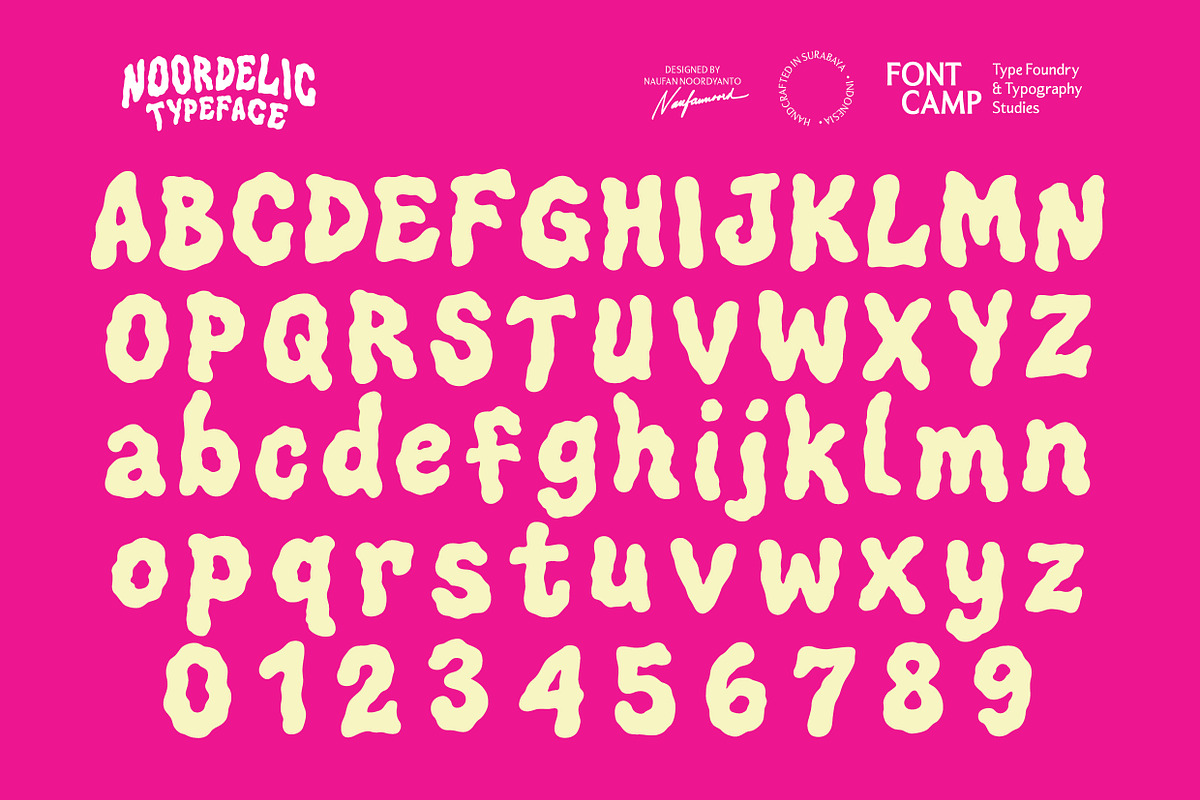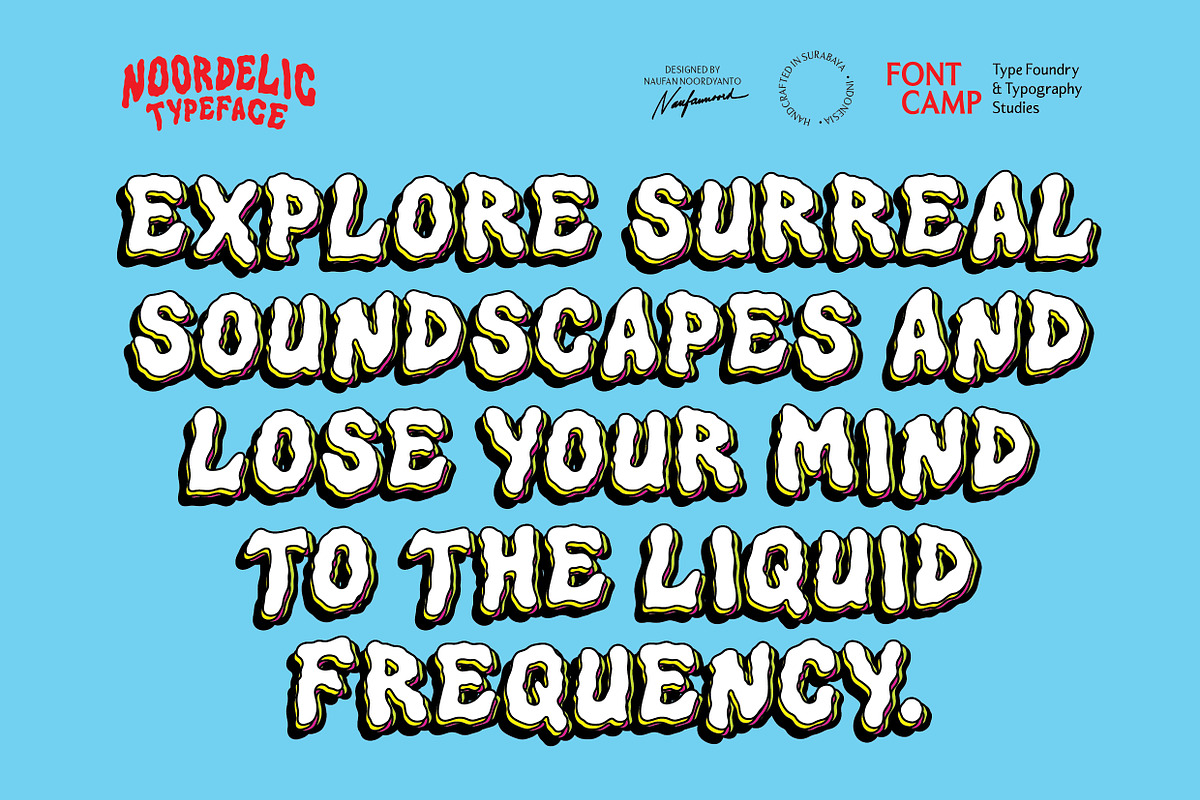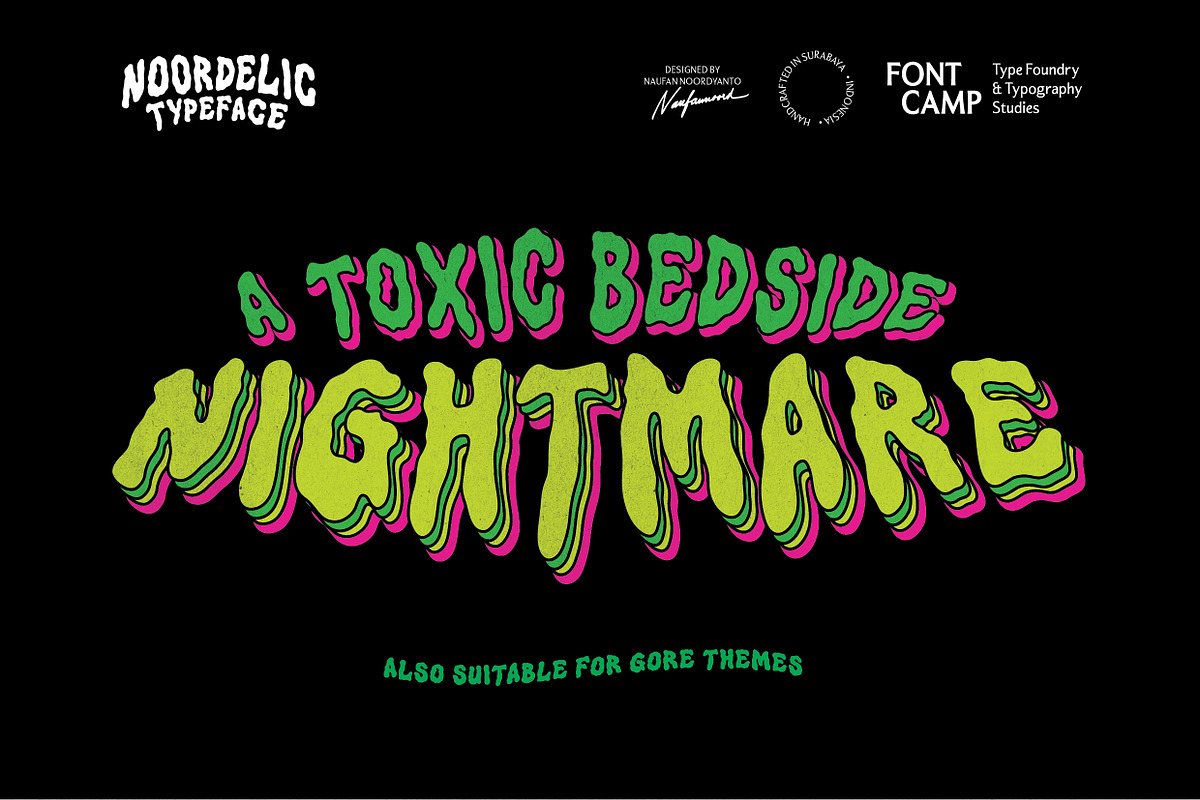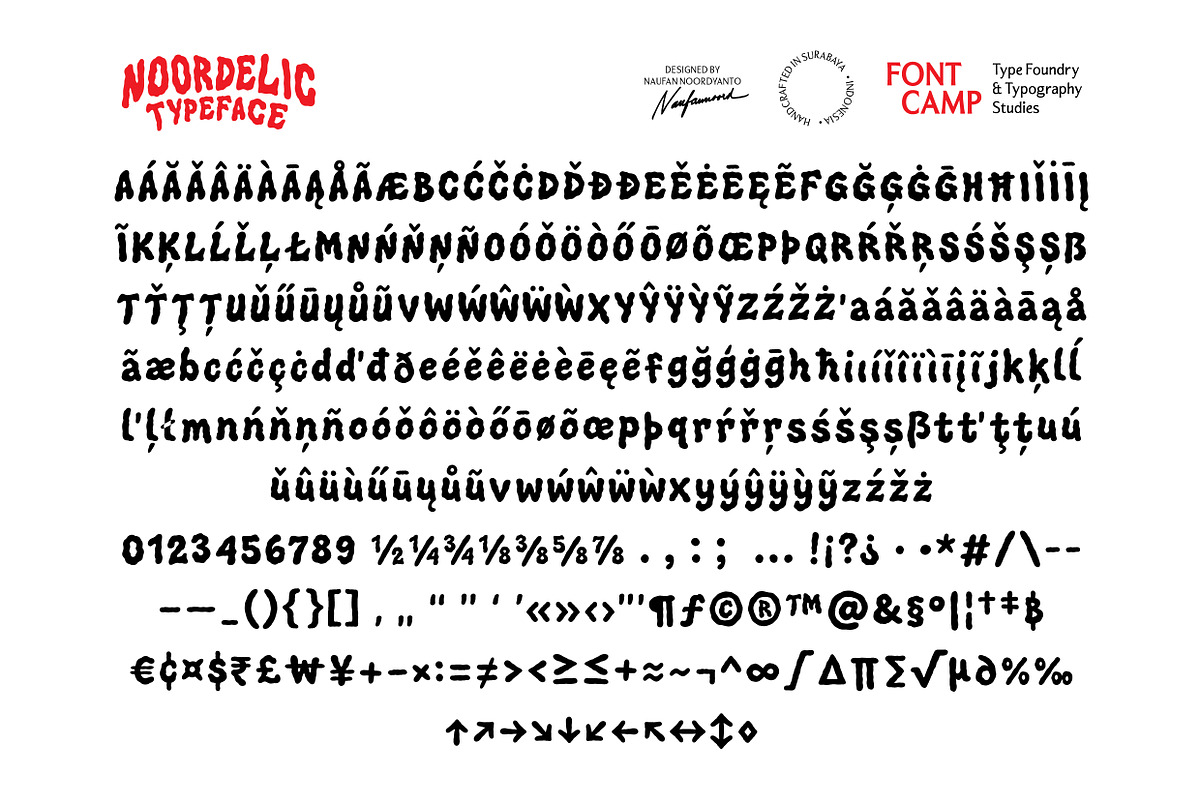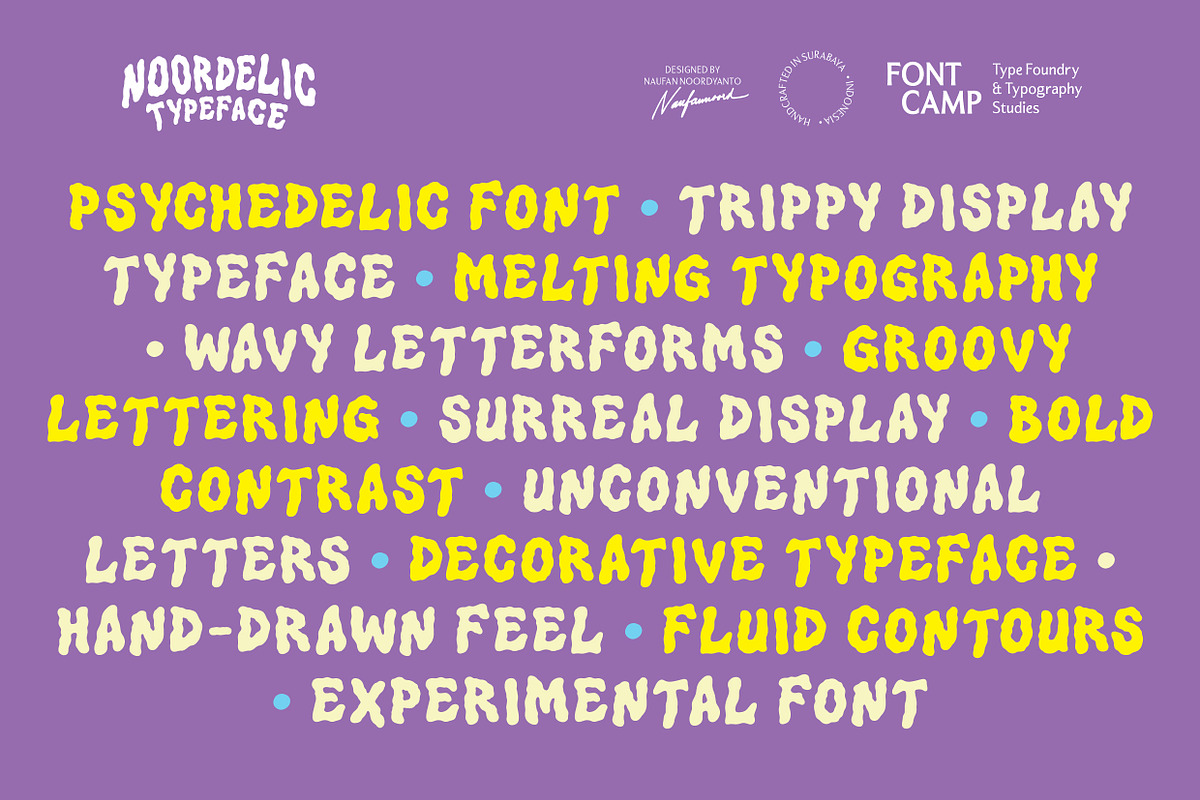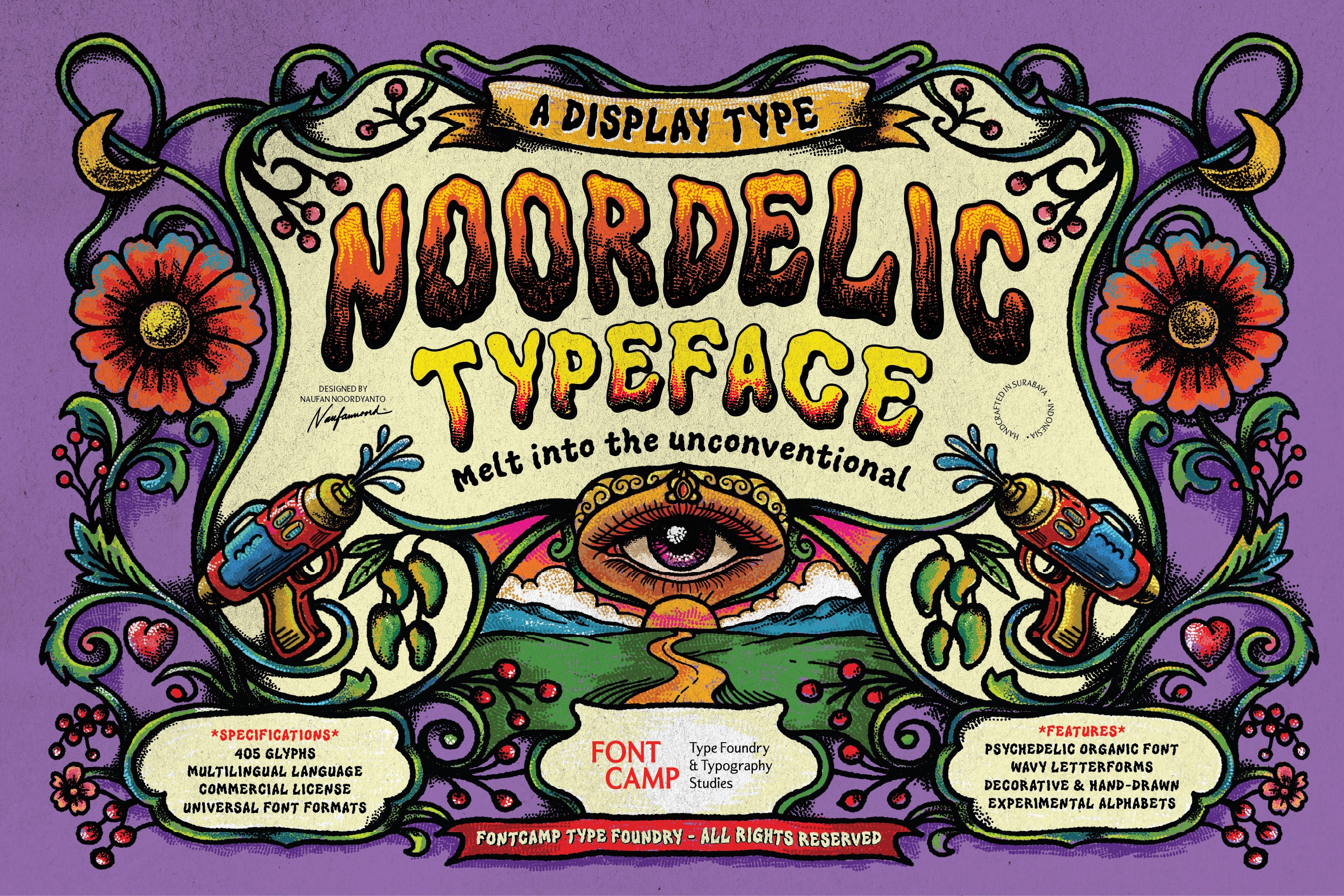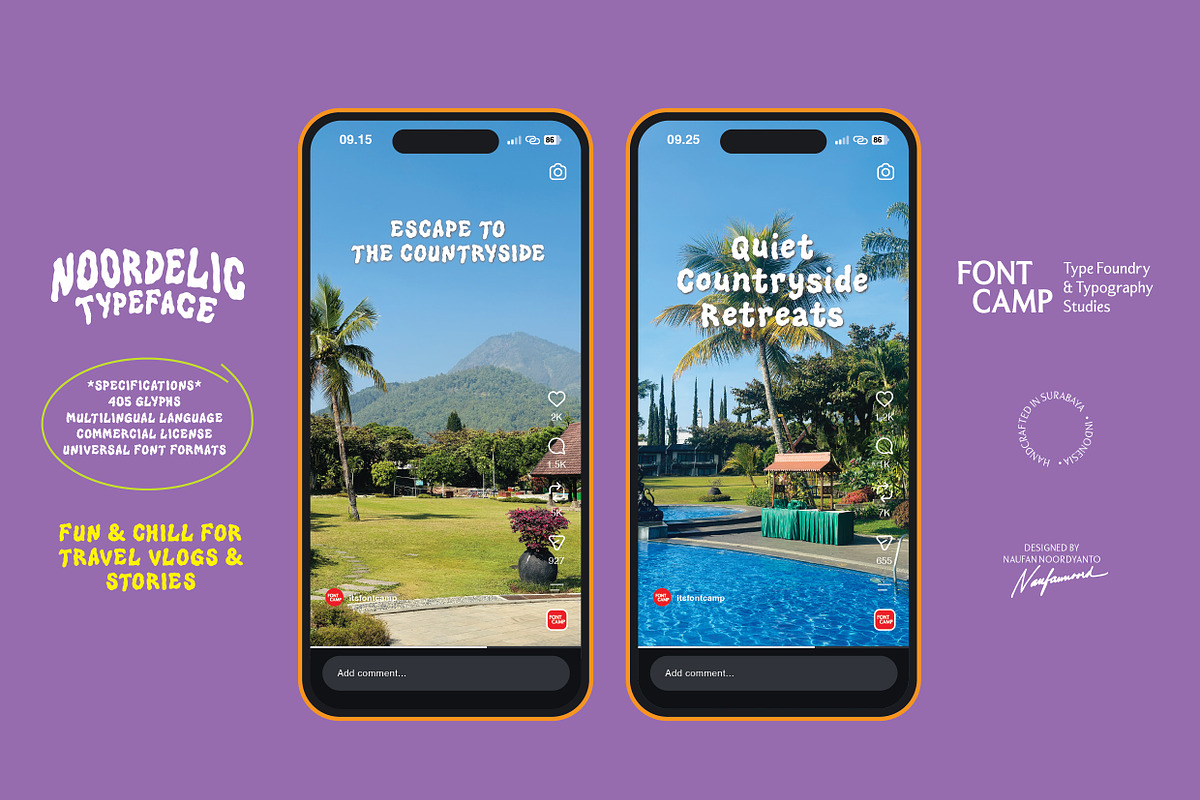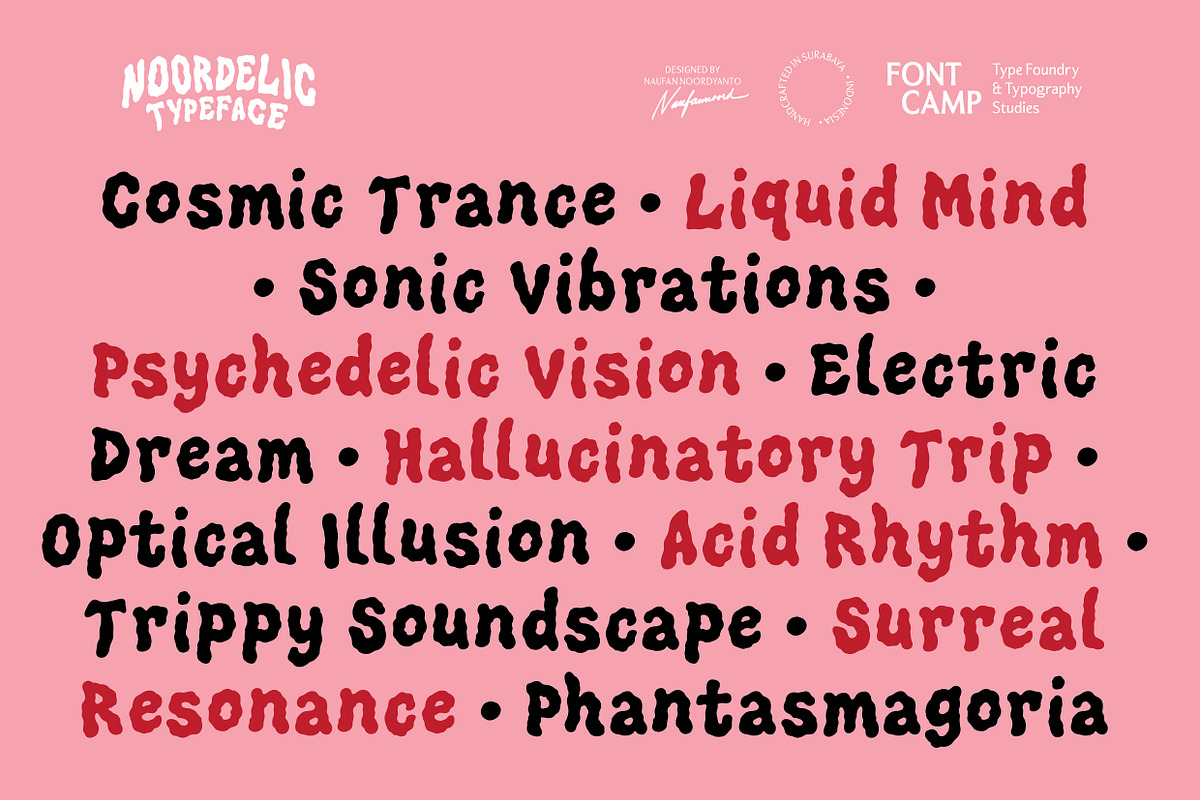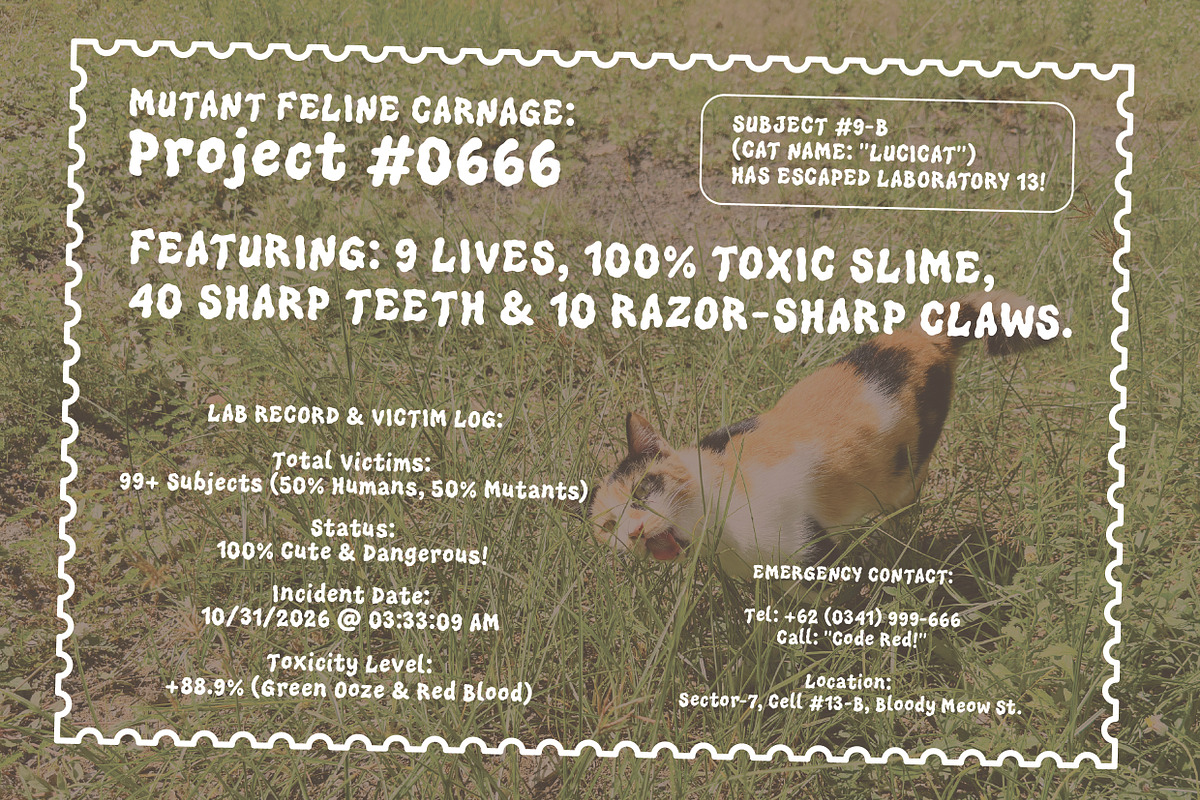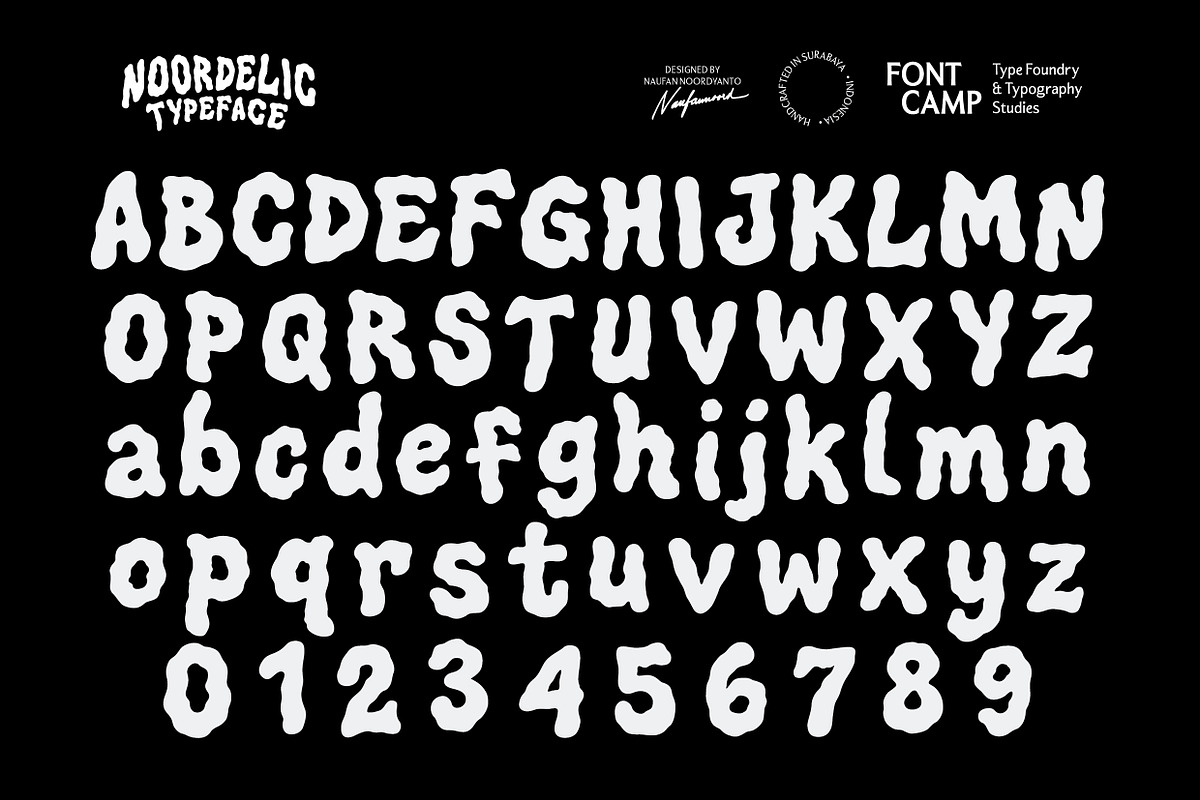
Noordelic Font
Introducing the "NOORDELIC" Font.
**DESCRIPTION **
Noordelic is an expressive, fluid, and surreal display typeface inspired by psychedelic aesthetics and organic movement. Created by Noordyanto Naufan, its defining characteristic is a wavy, melting contour paired with a strong thick-thin contrast, giving the text an impression of continuous transformation and uninhibited creative flow.
The letterforms feature unconventional, liquid-like structures with heavy decorative swells and elongated, curling terminals. Its bold contrast and hand-drawn imperfections create an authentic, trippy, and fantastical visual sensation that commands instant attention. The unique curves and fluid rhythm allow for striking, high-impact layouts that range from groovy 1970s retro aesthetics to toxic, biohazard, and green-and-red gore themes.
This versatile and lively structure makes Noordelic an ideal choice for eye-catching poster headlines, music album art, festival branding, streetwear merchandise, travel vlogs, and creative story content that embraces an eccentric, underground vibe.
Expansive character library: engineered with 405 meticulously crafted glyphs, providing full coverage for high-impact displays, symbols, numerals, across a single definitive style.
Commanding All-Caps design: specially structured as a display typeface with distinct letterform variations between uppercase and lowercase keys, optimized for dynamic headlines, bold logotypes, and decorative branding.
**Global linguistic support: **built with an extended character set to ensure seamless compatibility with multiple languages, supporting diverse diacritics and international scripts.